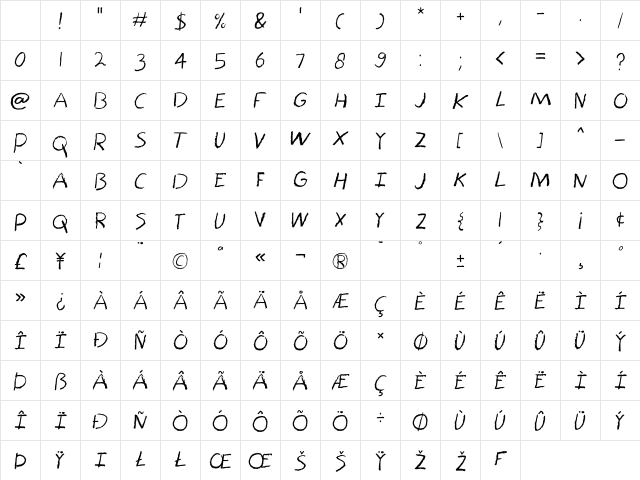
Complete Bored Crayon Regular glyph index. Displaying only characters natively supported by Bored Crayon Regular font.
Bored Crayon is a composed and adaptable typeface that performs quietly and consistently across a wide range of design contexts.